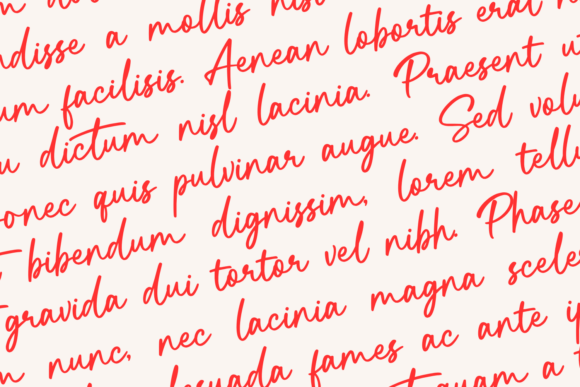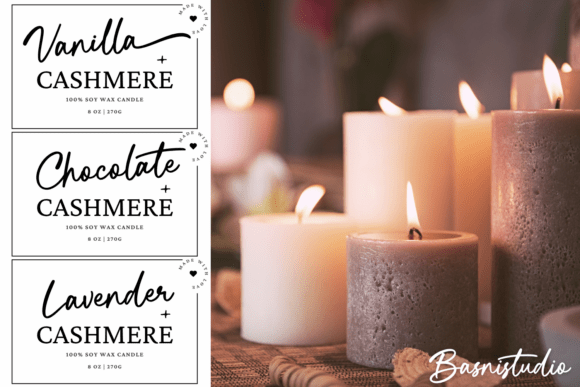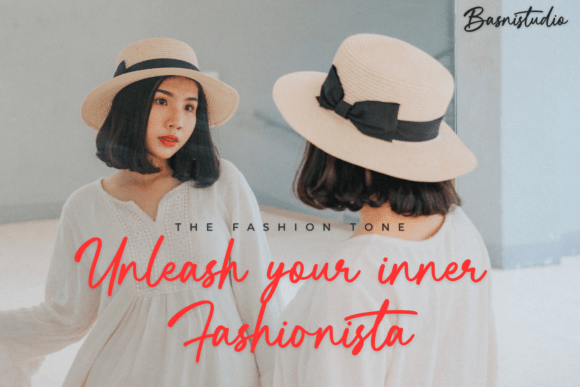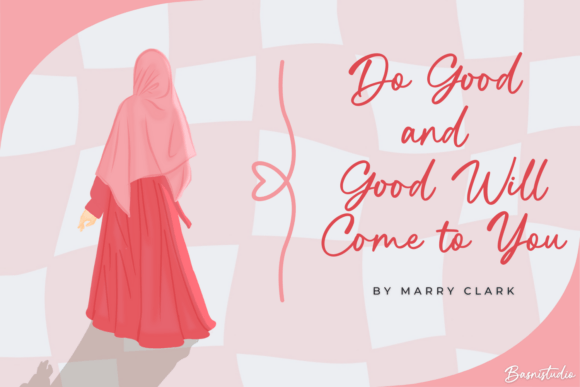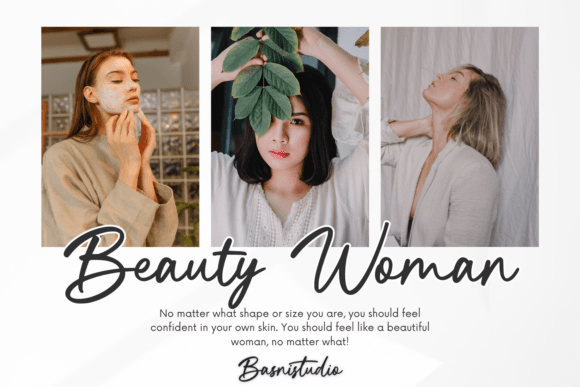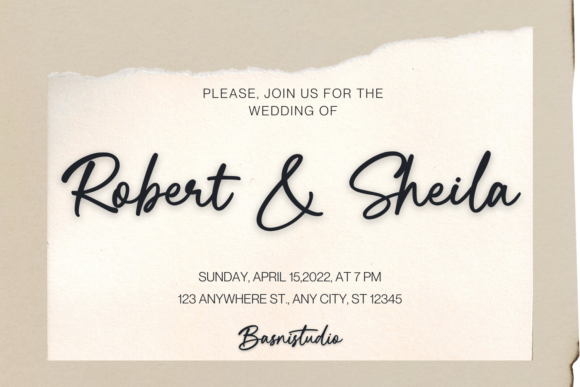
Introduction to Nesta Mastone Font
As a designer, there’s nothing quite like the feeling of creating a logo or branding material that perfectly captures the essence of a client’s vision. It’s that moment of “aha” when the words, images, and typography all come together in perfect harmony. And for those who crave a touch of personal luxury and high-end customization, there’s one font that stands out from the rest: the Nesta Mastone Font. This sleek, modern signature script font is designed to evoke the feeling of a fast, stylish handwriting with a pen or marker, giving it an authentic and effortless look.
Whether you’re working on a high-end branding project or creating elegant wedding stationery, the Nesta Mastone Font is the perfect design resource to elevate your work. Its unique features, such as the slightly inconsistent stroke weight and energetic connections between letters, make it an ideal choice for designers who want to add a touch of sophistication and personality to their creative projects.
- Unique, hand-drawn design elements and intricate details, allowing for a high level of customization and personalization in design projects.
- Perfect for designers and artists looking for a unique design resource that can add a touch of elegance and sophistication to their creative projects.
Honest Review: Nesta Mastone Font
I recently came across the Nesta Mastone Font, and I must say it’s a great addition to any designer’s toolkit. With its free download option, it’s an excellent resource for creatives working on projects with tight budgets.
One of the standout features of this font is its high quality and versatility. It’s perfect for use in logos, branding materials, and even digital products. I particularly appreciate the transparent background option, which allows for seamless integration with other design elements.
- ✨ High-quality design with crisp lines and clean typography
- ✨ Versatile and suitable for a wide range of creative projects
- ⚠️ Limited font weights and styles, which may not be suitable for complex designs
Overall, I’m impressed with the Nesta Mastone Font, and I would definitely recommend it to fellow designers. It’s a great resource for anyone looking to elevate their creative project with a high-quality, professional font.
The Nesta Mastone Font is ideal for a variety of creative projects, including:
- Business cards and logos
- Marketing materials and brochures
- Website design and development